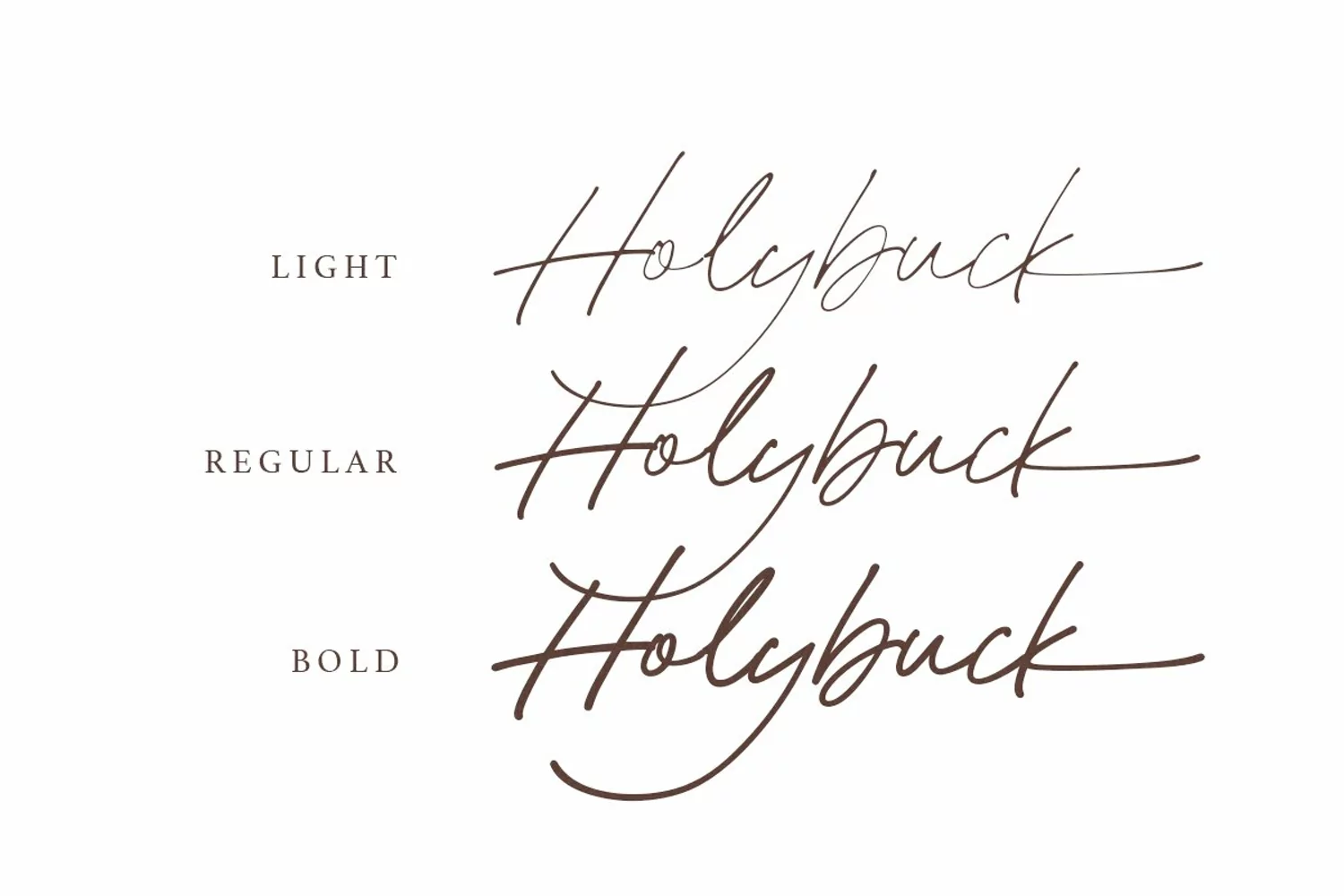
Holybuck is signature script with three style that contain stylistic alternate, swash and underline to create your own costumized signature or logo design. This font is also support multi language. Available in OTF and TTF. Also Support PUA. It's available in three weigh style!